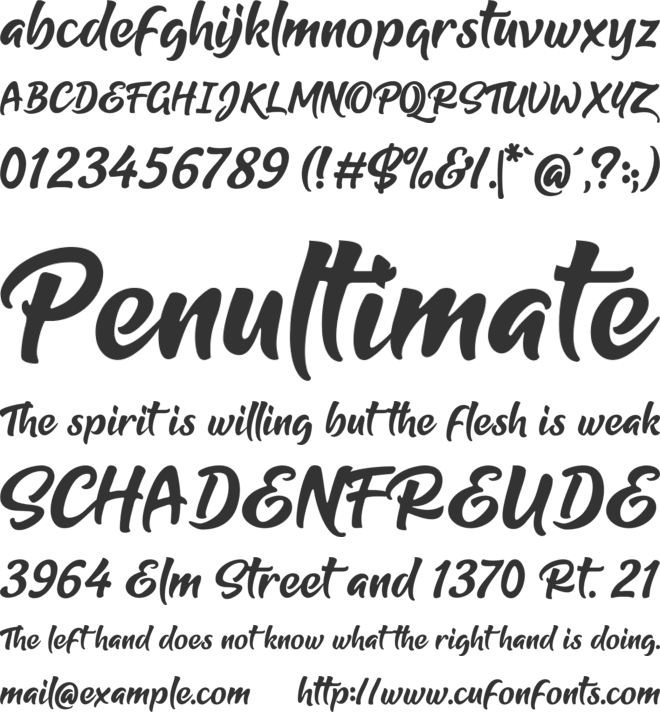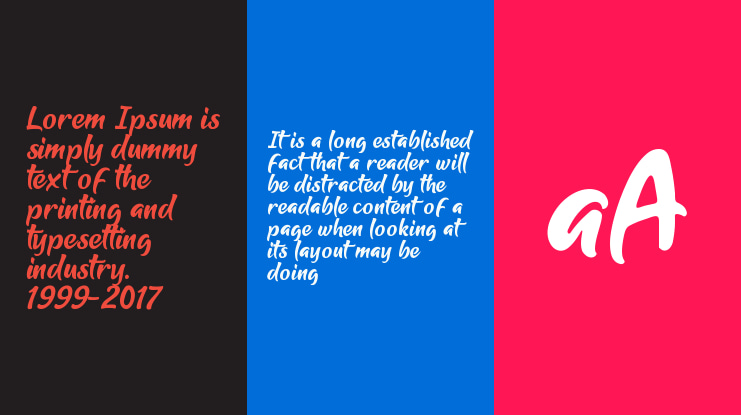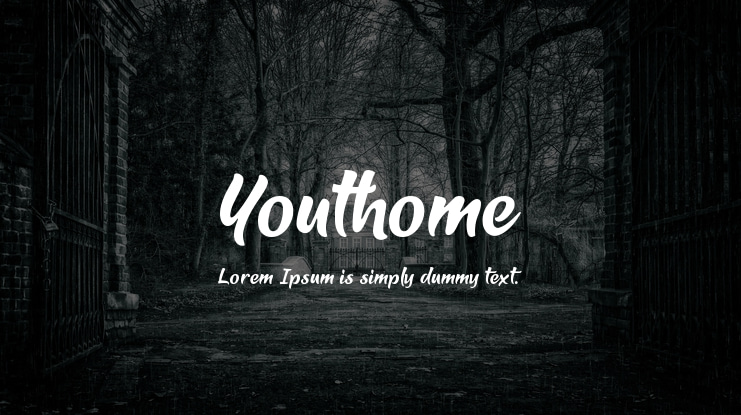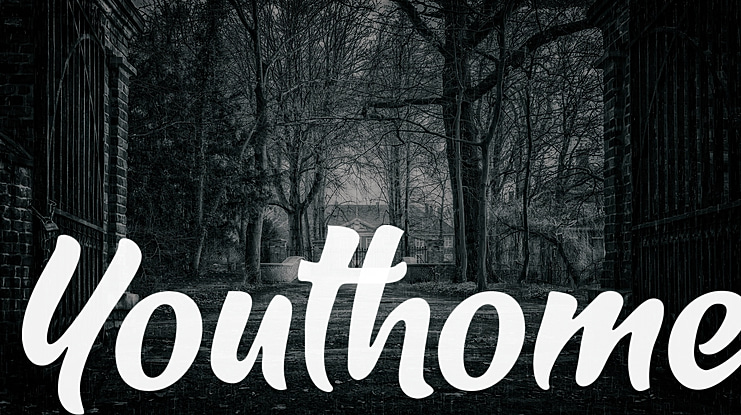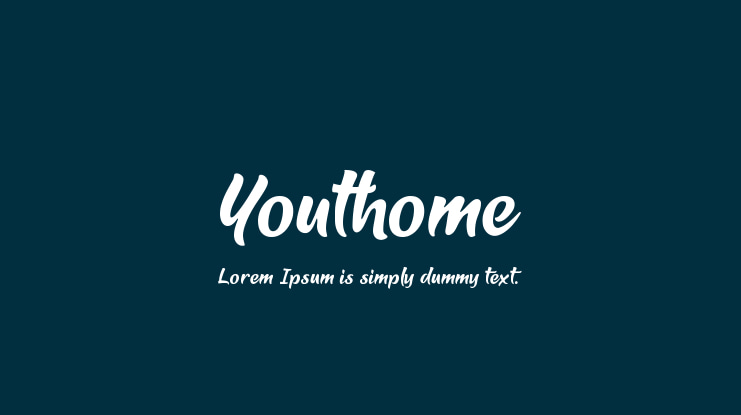
Youthome Font
Youthome is a font that is inspired by the style and creativity of young people and is very suitable to be applied to every product or work at the present time.